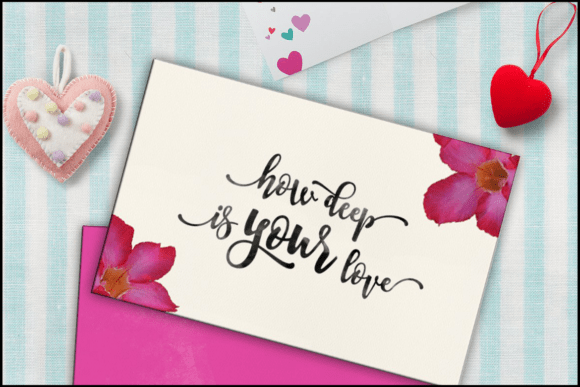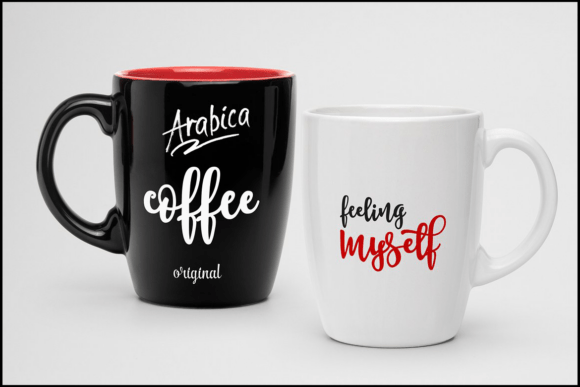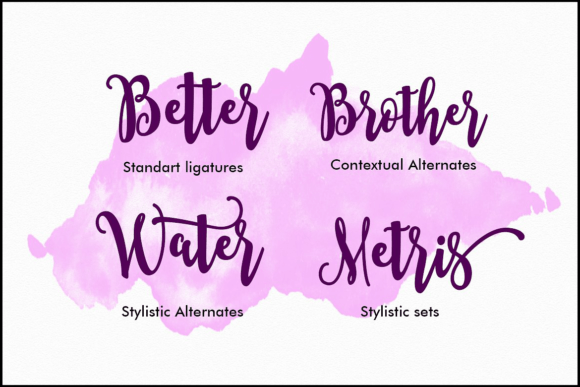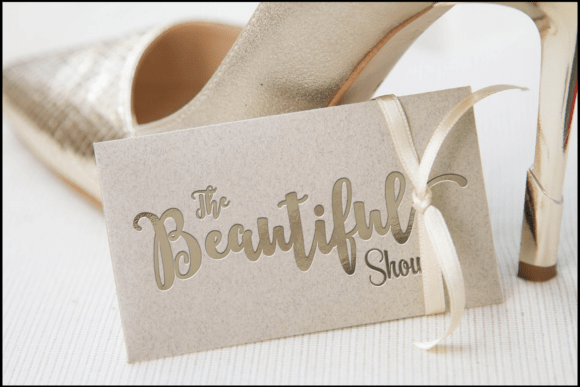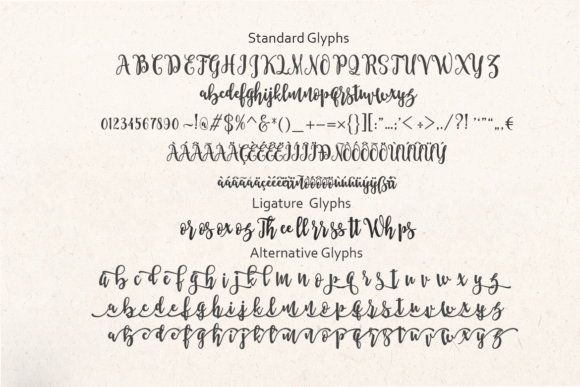
Add a Touch of Artisanal Flair to Your Designs with Freestyle Font
Are you looking for a typeface that can add a personal touch to your designs while exuding elegance and sophistication? Look no further than the Freestyle font, a stunning handmade script typeface that is sure to take your designs to the next level. With its fluid, sweeping strokes and natural rhythm that mimics authentic brush calligraphy, the Freestyle font is the perfect choice for designers and crafters who want to add a touch of artisanal flair to their work.
The Characteristics of Freestyle Font
The Freestyle font is a true masterpiece, boasting a range of characteristics that make it stand out from other typefaces. Its fluid, sweeping strokes give it a natural, hand-crafted feel that is reminiscent of authentic brush calligraphy. The font’s elegant and refined appearance makes it perfect for high-end product packaging, romantic wedding invitations, and stylish social media branding. Whether you’re designing a logo for a boutique or a menu for a trendy cafe, the Freestyle font is sure to bring a sense of effortless creativity to your project.
One of the best things about the Freestyle font is its versatility. It commands attention as a headline, while maintaining a warm, approachable feel for longer quotes. This makes it perfect for a wide range of design applications, from luxury branding to packaging and advertising. The font’s natural rhythm and fluid strokes also make it easy to read, even at smaller sizes, making it perfect for body text and captions.
Pairing Suggestions
To get the most out of the Freestyle font, it’s essential to pair it with the right design elements. For a premium, “handmade” aesthetic, try pairing the font with minimalist photography and gold accents. This will add a touch of luxury and sophistication to your designs, while also highlighting the font’s elegant and refined appearance. Alternatively, you can pair the Freestyle font with bold colors and playful graphics for a more modern and edgy look.
Accessible and Easy to Use
Another great thing about the Freestyle font is that it’s incredibly easy to use, even for designers who are new to typography. Thanks to PUA encoding, the entire character set is accessible without needing specialized design programs. This means you can easily access all the characters, ligatures, and alternates you need to create stunning designs, without having to learn complicated design software.
The Freestyle font is perfect for designers and crafters who want to add a personal touch to their work. Whether you’re designing a logo, creating a brochure, or crafting a social media post, this font is sure to bring a sense of effortless creativity to your project. Its elegant and refined appearance makes it perfect for high-end branding and luxury packaging, while its warm and approachable feel makes it perfect for more personal and creative projects.
In conclusion, the Freestyle font is a stunning handmade script typeface that is sure to add a touch of artisanal flair to your designs. With its fluid, sweeping strokes and natural rhythm that mimics authentic brush calligraphy, it’s the perfect choice for designers and crafters who want to create elegant and refined designs. Whether you’re designing a logo, creating a brochure, or crafting a social media post, the Freestyle font is sure to bring a sense of effortless creativity to your project. So why wait? Download the Freestyle font today and start creating stunning designs that are sure to impress.
- Handmade script typeface
- Fluid, sweeping strokes and natural rhythm
- Elegant and refined appearance
- Perfect for high-end product packaging, romantic wedding invitations, and stylish social media branding
- Commands attention as a headline while maintaining a warm, approachable feel for longer quotes
- Pair with minimalist photography and gold accents for a premium, “handmade” aesthetic
- Accessible and easy to use, thanks to PUA encoding